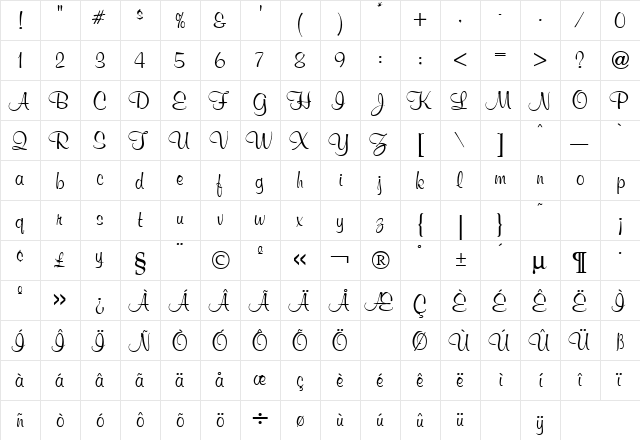
Murray Hill Bold Regular
Design Context for Murray Hill Bold Typeface
Murray Hill Bold is a composed and adaptable typeface that performs quietly and consistently across a wide range of design contexts. The heavy weight commands attention and anchors typographic hierarchies.